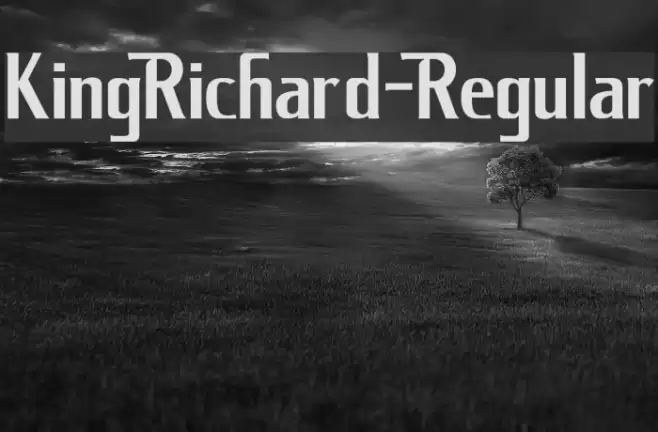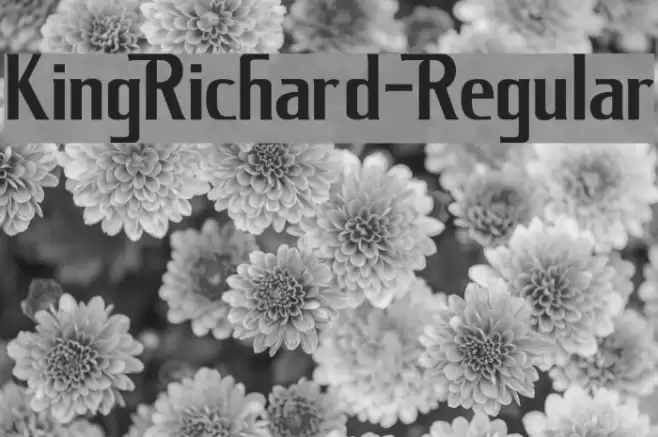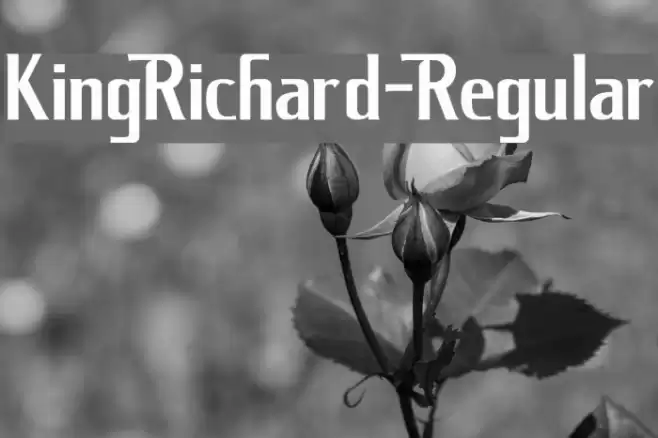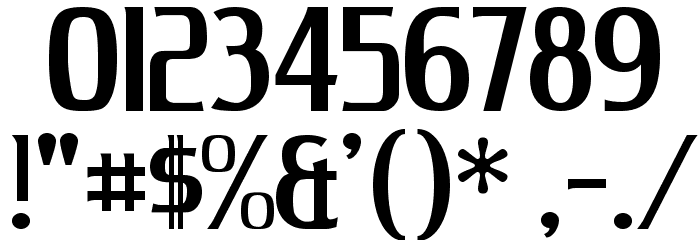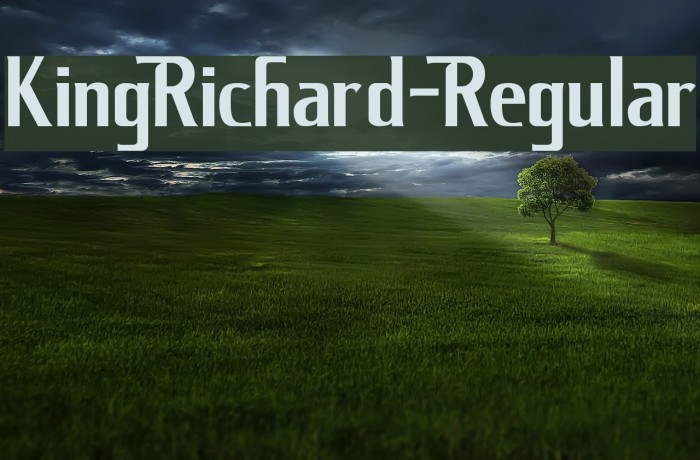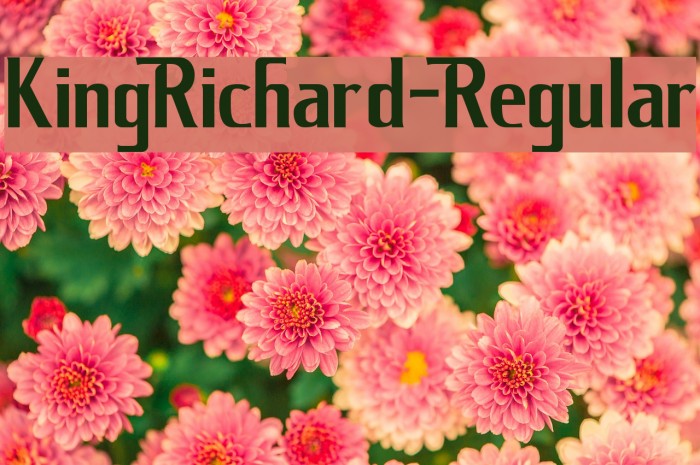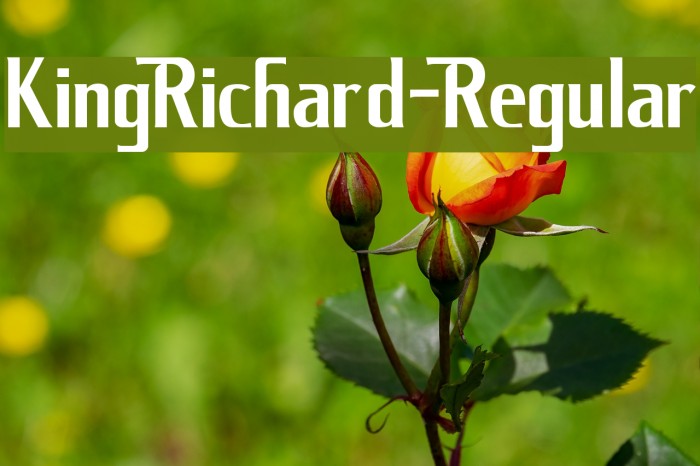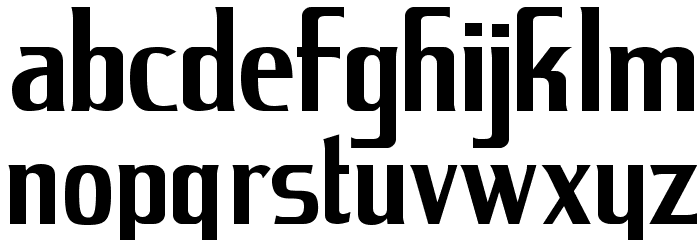
KingRichard-Regular Font
KingRichard-Regular Description
This font features a bold and dynamic design with a strong presence. The uppercase letters are tall and slightly condensed, giving a sense of authority and elegance. The lowercase letters maintain a consistent style, with unique curves and angles that add character. The numerals are clear and distinct, ensuring readability. Special characters are well-integrated, maintaining the overall aesthetic. The font's design is versatile, suitable for a variety of applications where a strong and impactful typeface is needed.
A bold, dynamic font with a strong presence and unique character from Uncategorized fonts.
- Proposed Projects: Ideal for branding, headlines, posters, and any project requiring a bold statement.